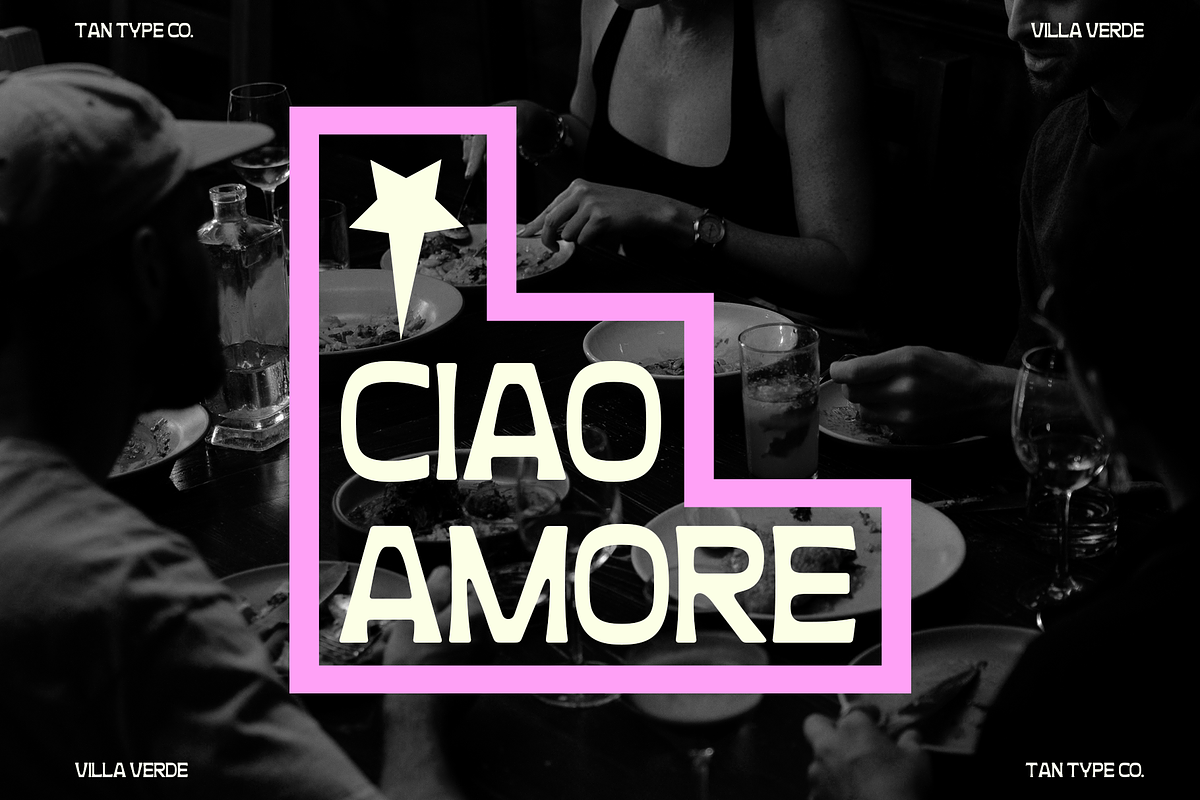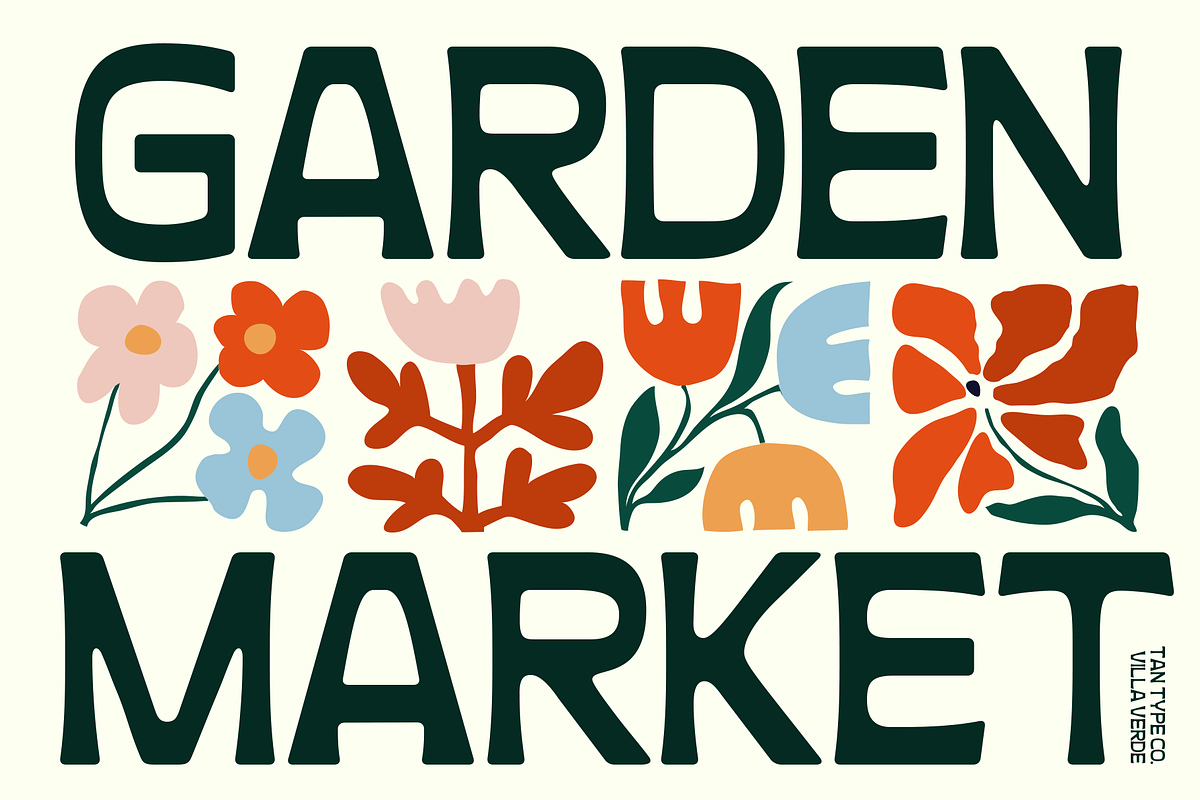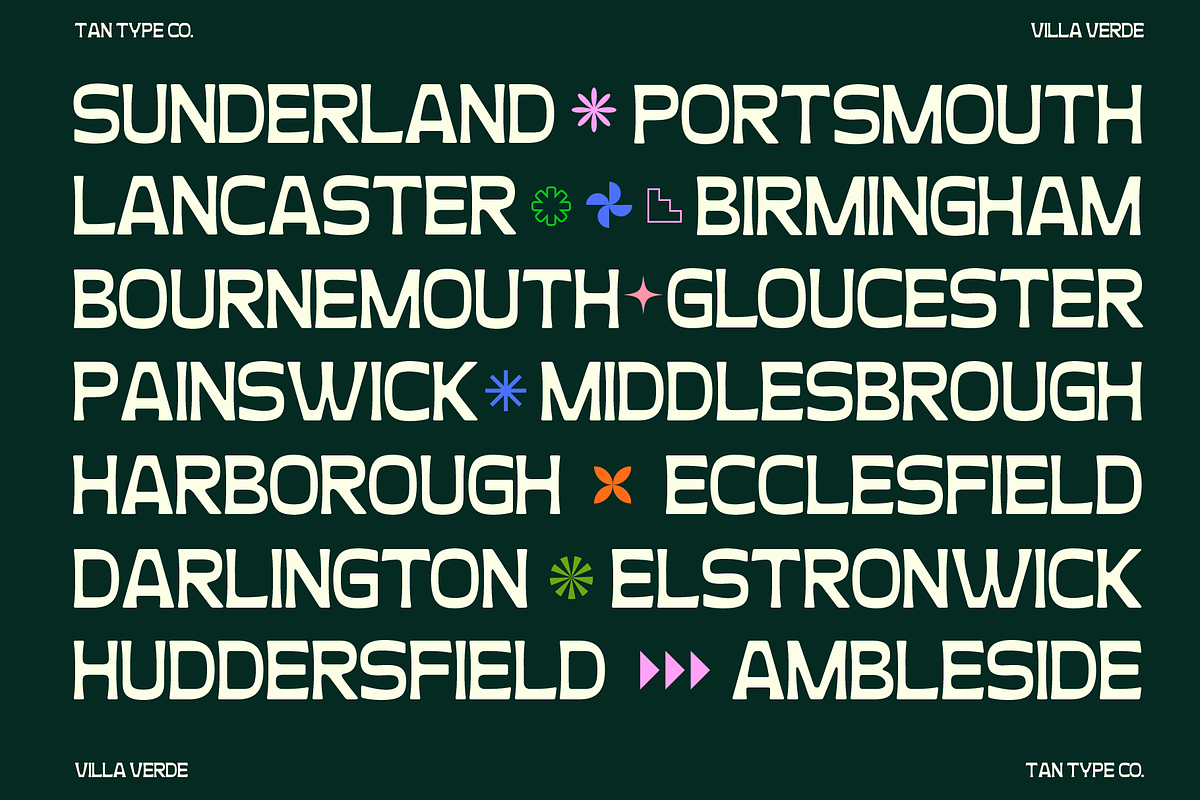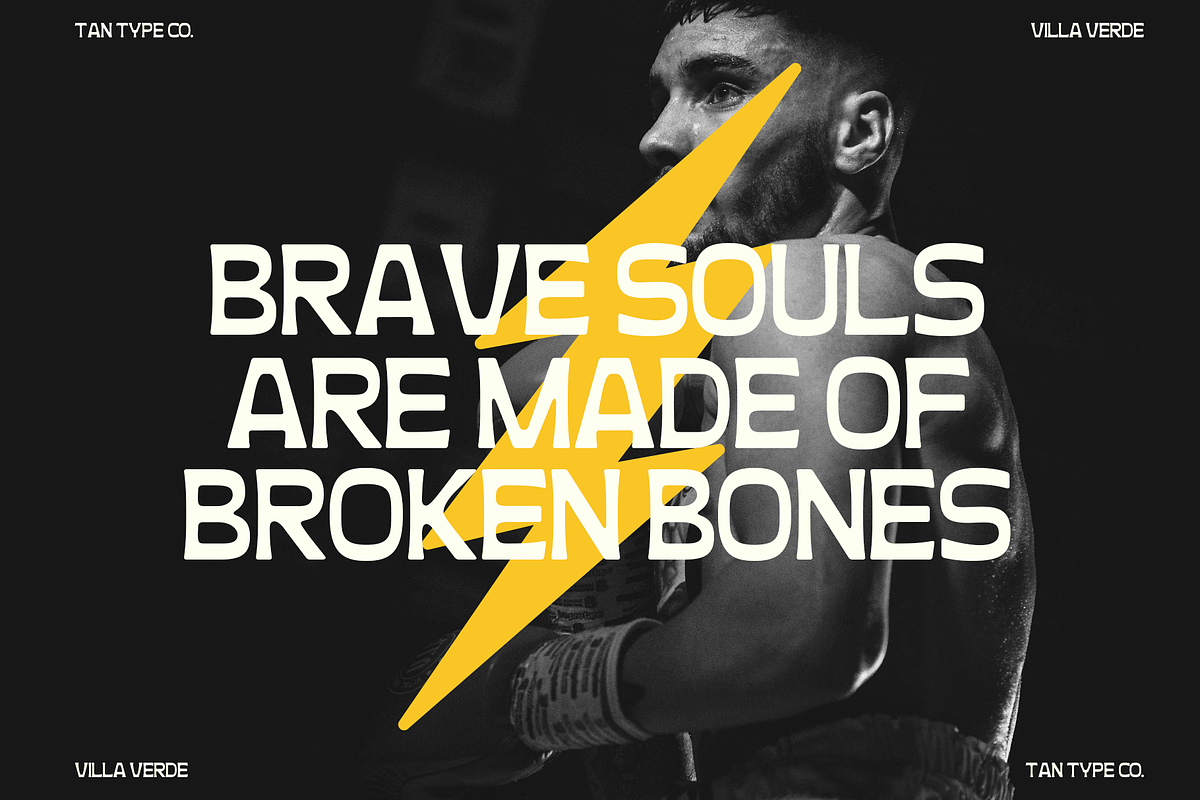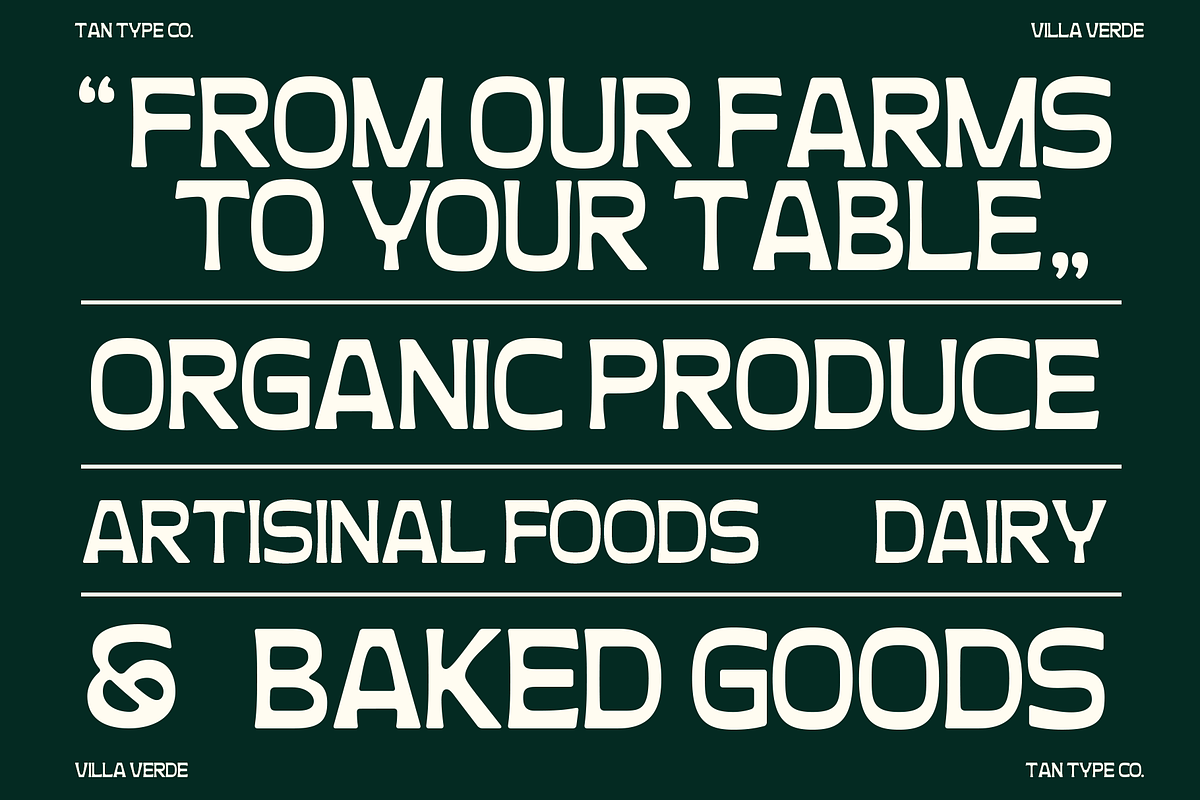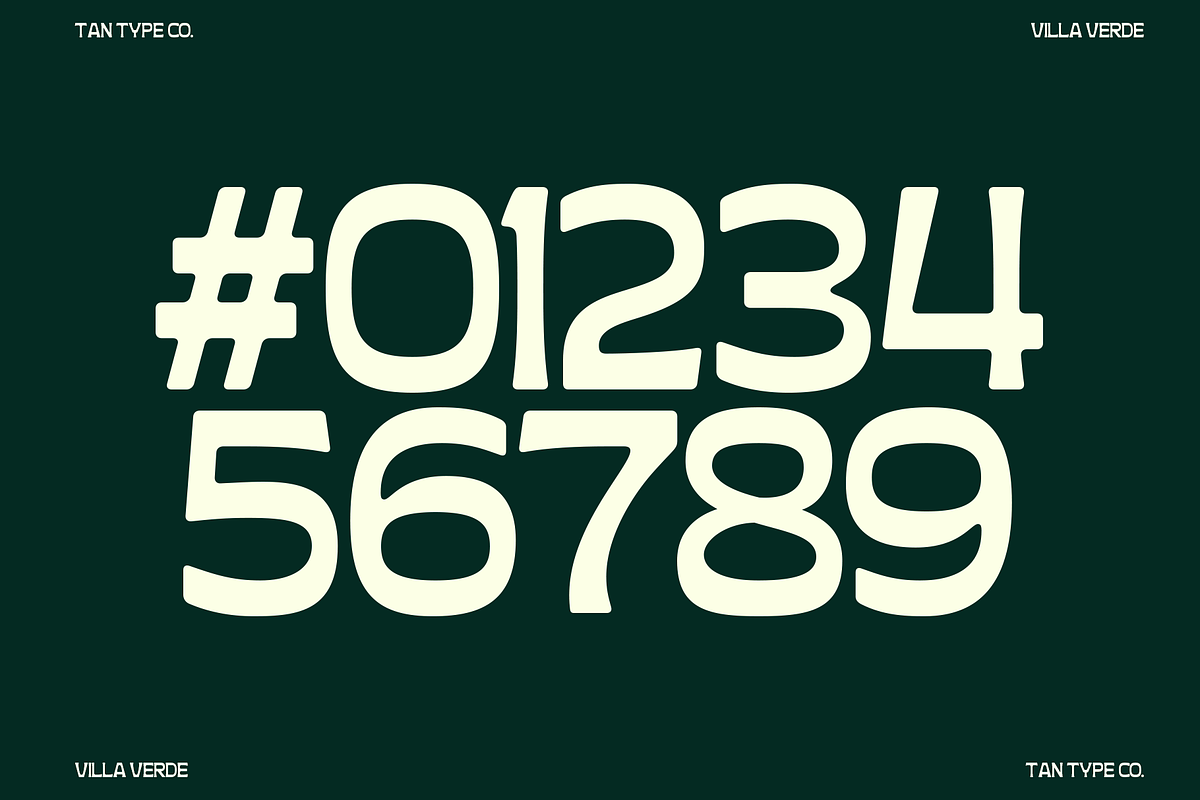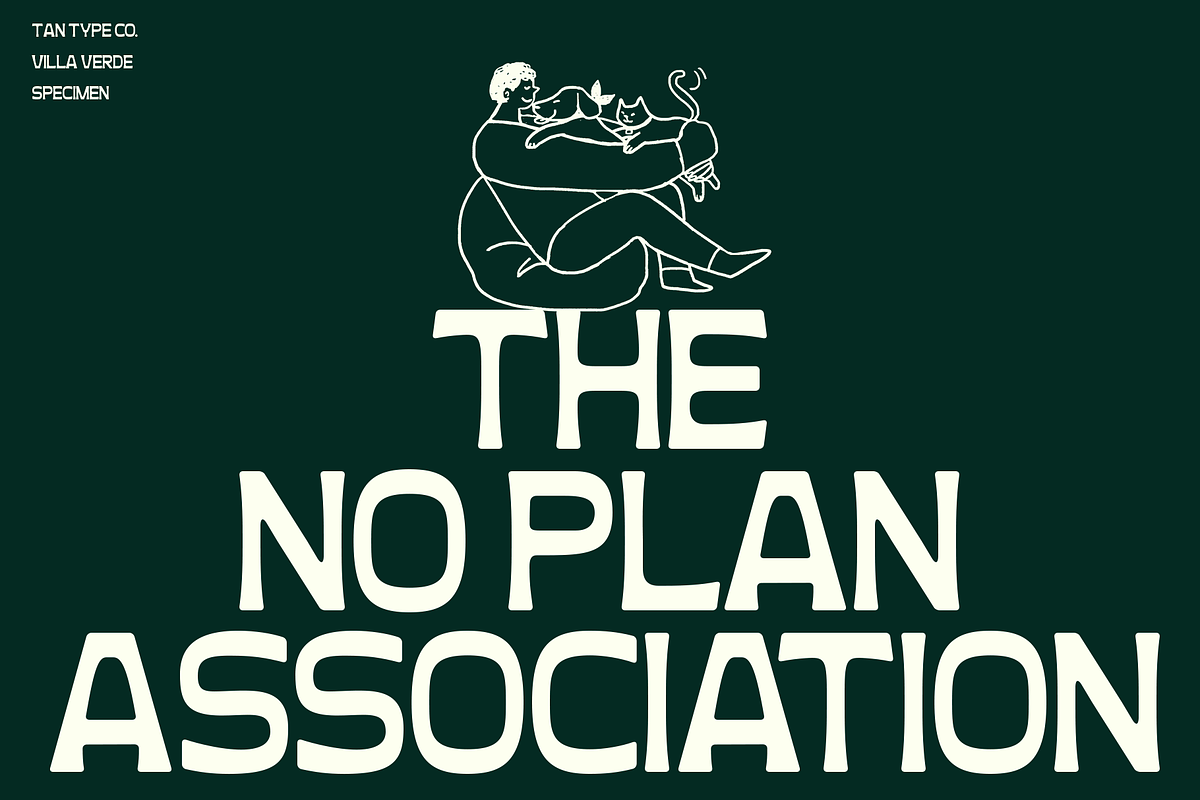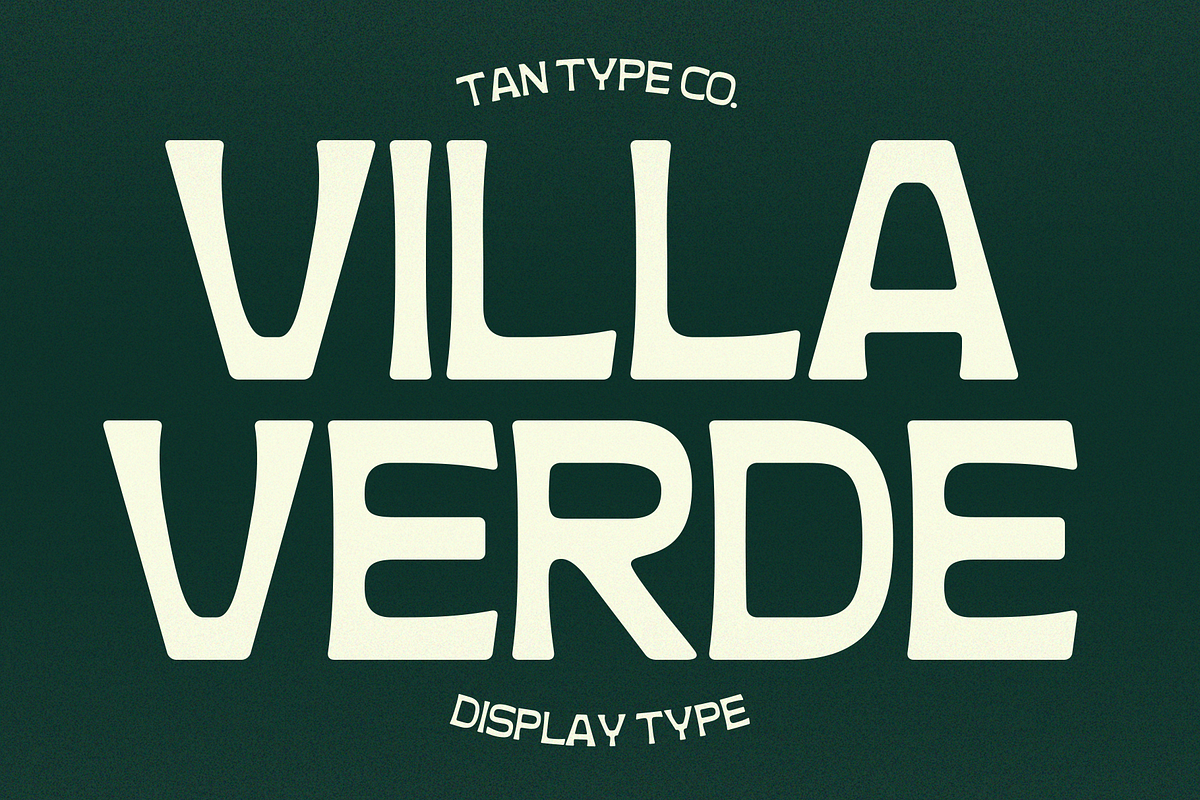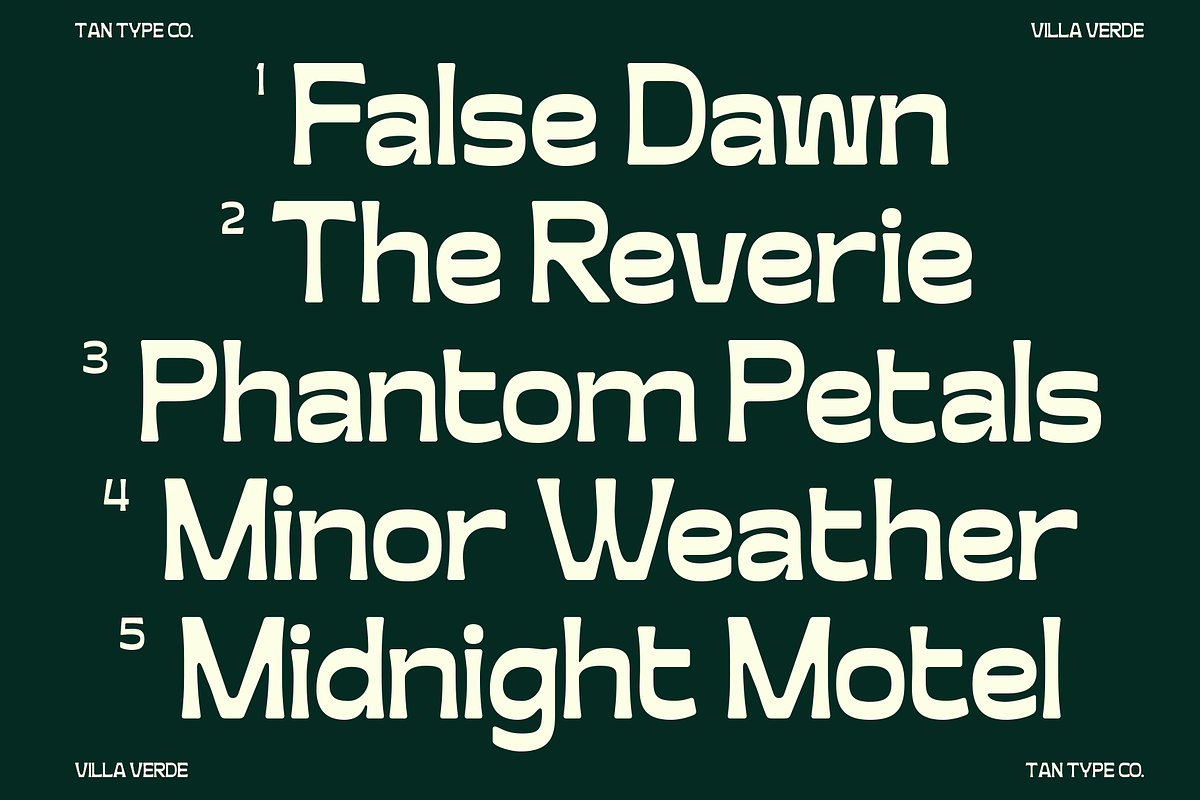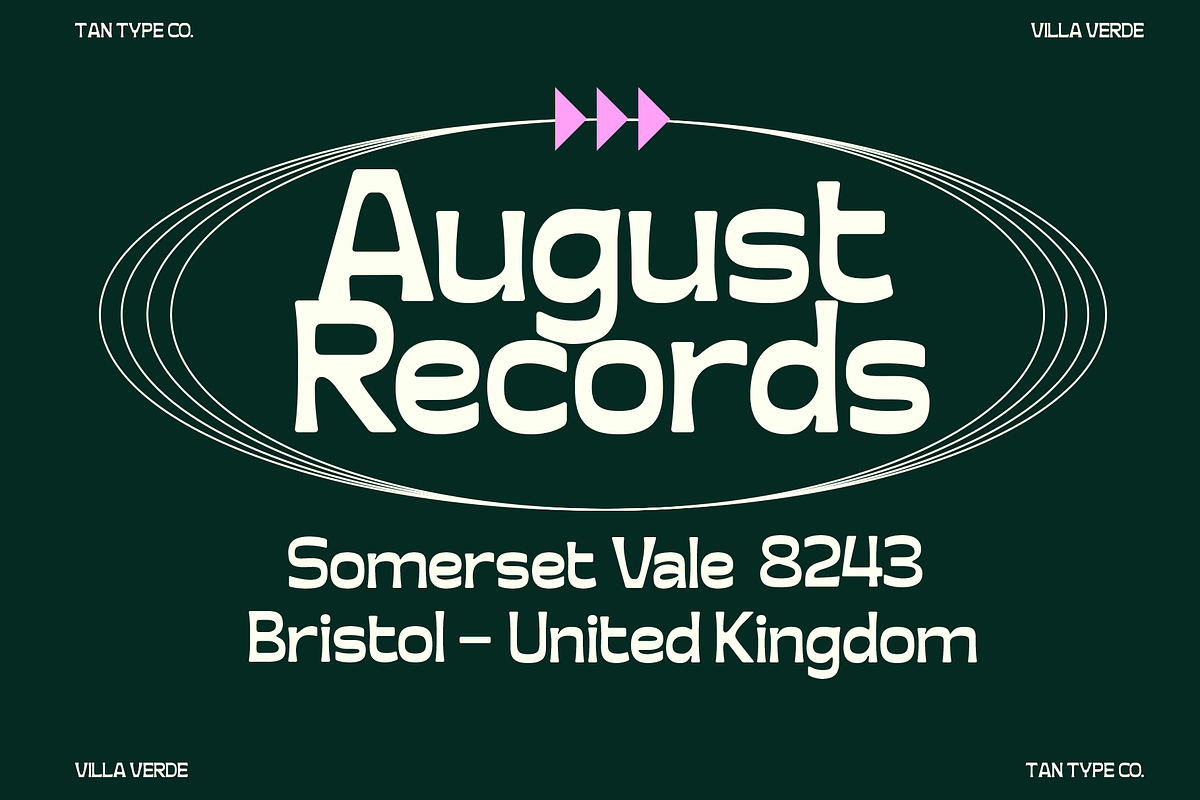
TAN - VILLA VERDE
Villa Verde is a fun, informal typeface that embraces simplicity with charm. Designed with soft curves and clean shapes, it brings a friendly, grounded feel to your creative work—no frills, just personality. Whether you're working on branding, packaging, social posts, or editorial layouts, Villa Verde offers a relaxed tone that’s easy to read and easy to love. It’s playful without being loud, simple without feeling plain. Perfect for creatives who want a typeface that feels honest, human, and effortlessly stylish.